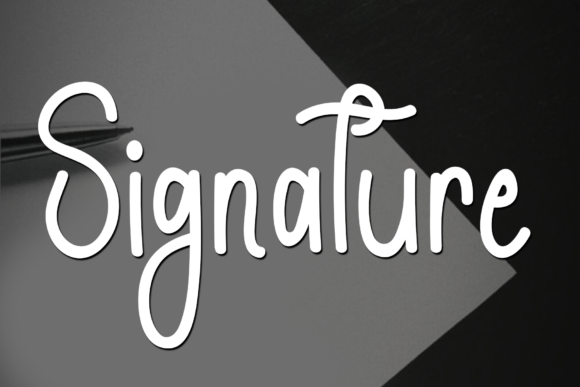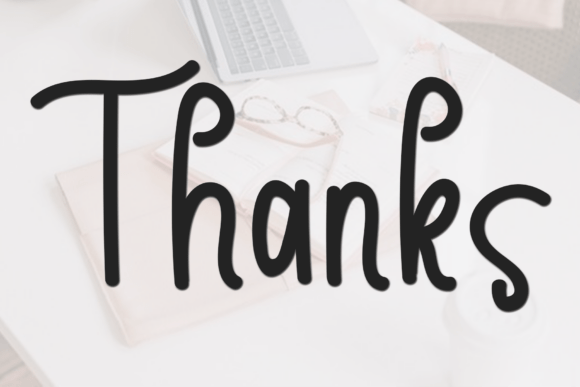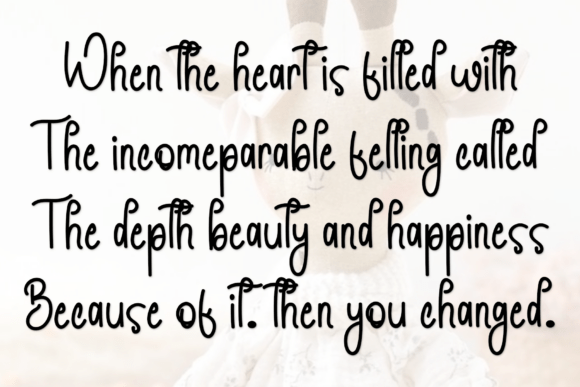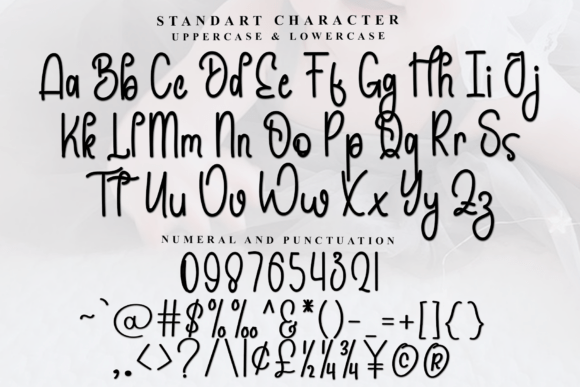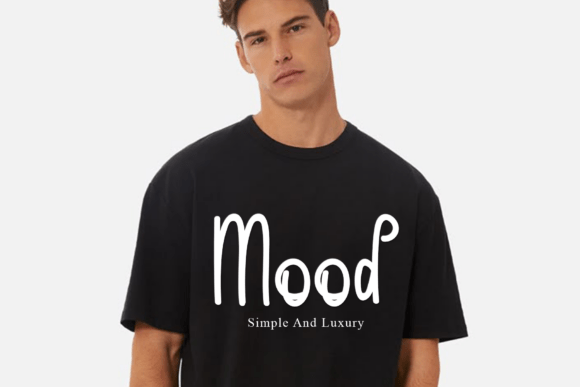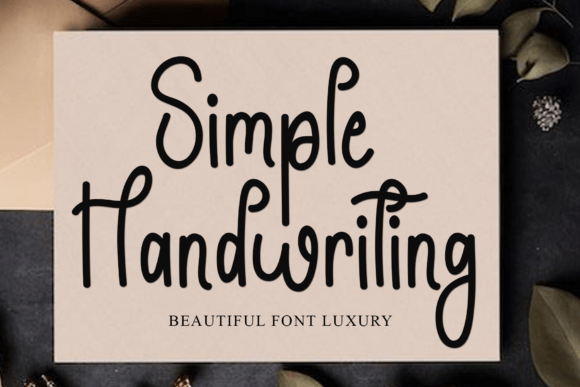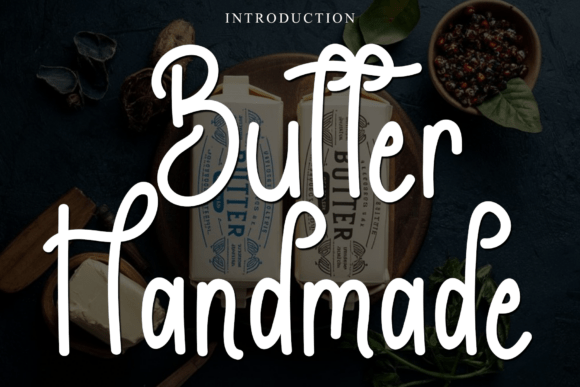
Discover the Whimsy of Butter Handmade Font
Have you ever stumbled upon a font that instantly sparks your creativity and makes you want to dive into a design project? For many of us, that moment is what drives our passion for art and design. It’s the thrill of finding the perfect tool to bring our ideas to life. For designers and crafters alike, that moment often begins with the discovery of a unique and captivating font like the Butter Handmade Font.
With its soft, handcrafted strokes, this font adds a touch of warmth and personality to any project. Its versatility and compatibility with various applications make it an ideal choice for designers, crafters, and artists seeking to create unique and eye-catching designs. Whether you’re working on a graphic design project, crafting a handmade card, or creating digital art, the Butter Handmade Font is sure to inspire your creativity and elevate your work to new heights.
Key Features of Butter Handmade Font
• Font Family: Butter Handmade Font, a unique and hand-drawn font with a warm and inviting feel.
• Character Set: Includes a comprehensive set of characters, including uppercase and lowercase letters, numbers, and punctuation marks.
• Unique Characteristics: Features a distinctive, hand-drawn style with subtle imperfections, adding a touch of personality to your designs.
Designer Review: Butter Handmade Font
First off, I love the unique aesthetic of Butter Handmade Font. ✨ The subtle imperfections and hand-crafted feel really make it stand out from more traditional fonts. It’s perfect for projects that need a touch of warmth and personality.
One of the strengths of Butter Handmade Font is its versatility. ✨ It’s suitable for a wide range of applications, from invitations and greeting cards to branding and advertising. The font also comes with a variety of weights and styles, making it easy to find the perfect fit for your project.
However, there are a few limitations to consider. ⚠️ For one, the font may not be suitable for projects that require a high level of precision or clarity. The hand-crafted feel can sometimes make the text difficult to read, especially at smaller sizes. Additionally, the font may not be compatible with all operating systems or software.
Overall, I think Butter Handmade Font is a great addition to any designer’s toolkit. While it may have some limitations, its unique aesthetic and versatility make it a great choice for projects that need a little extra personality.
• Unique, hand-crafted aesthetic
• Highly versatile
• Multiple weights and styles
• May not be suitable for projects requiring high precision or clarity
Practical Application Guide: Butter Handmade Font
For best results, use Butter Handmade Font in conjunction with a high-contrast background and bold lines.
Use it to add a touch of elegance to invitations, menus, and other formal documents.
Butter Handmade Font is ideal for:
Formal event programs and menus
Boutique brand packaging and labels
Vintage-inspired advertising and marketing materials.
Alternatives to Butter Handmade Font
Ostrich Sans is a modern sans-serif font that is highly legible and versatile. It’s ideal for use in digital products, signage, and other applications where clarity is crucial. Compared to Butter Handmade Font, Ostrich Sans is more modern and clean-cut, lacking the handmade feel.
Playfair Display is a luxurious serif font that adds elegance to any design. It’s perfect for use in high-end branding, invitations, and other projects where sophistication is key. Unlike Butter Handmade Font, Playfair Display is more formal and refined, making it suitable for a wider range of applications.
Q: What is the recommended font size and line height for using Butter Handmade Font?